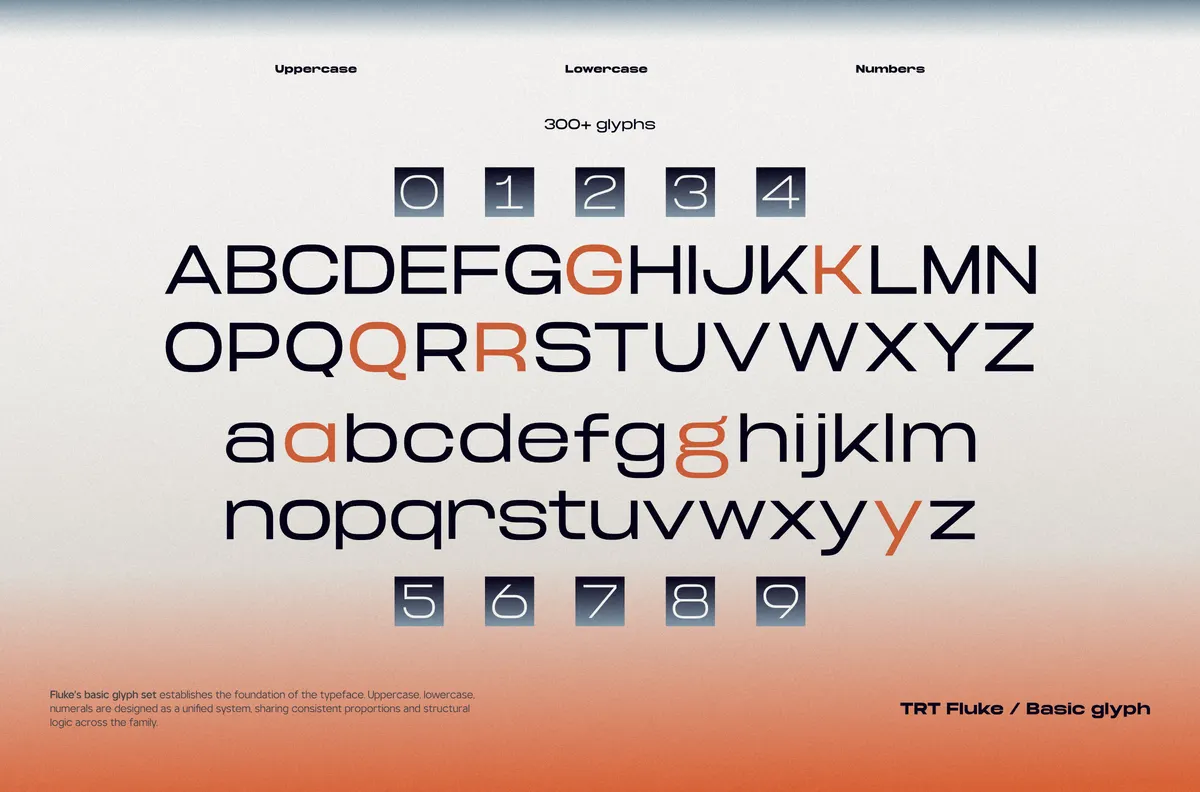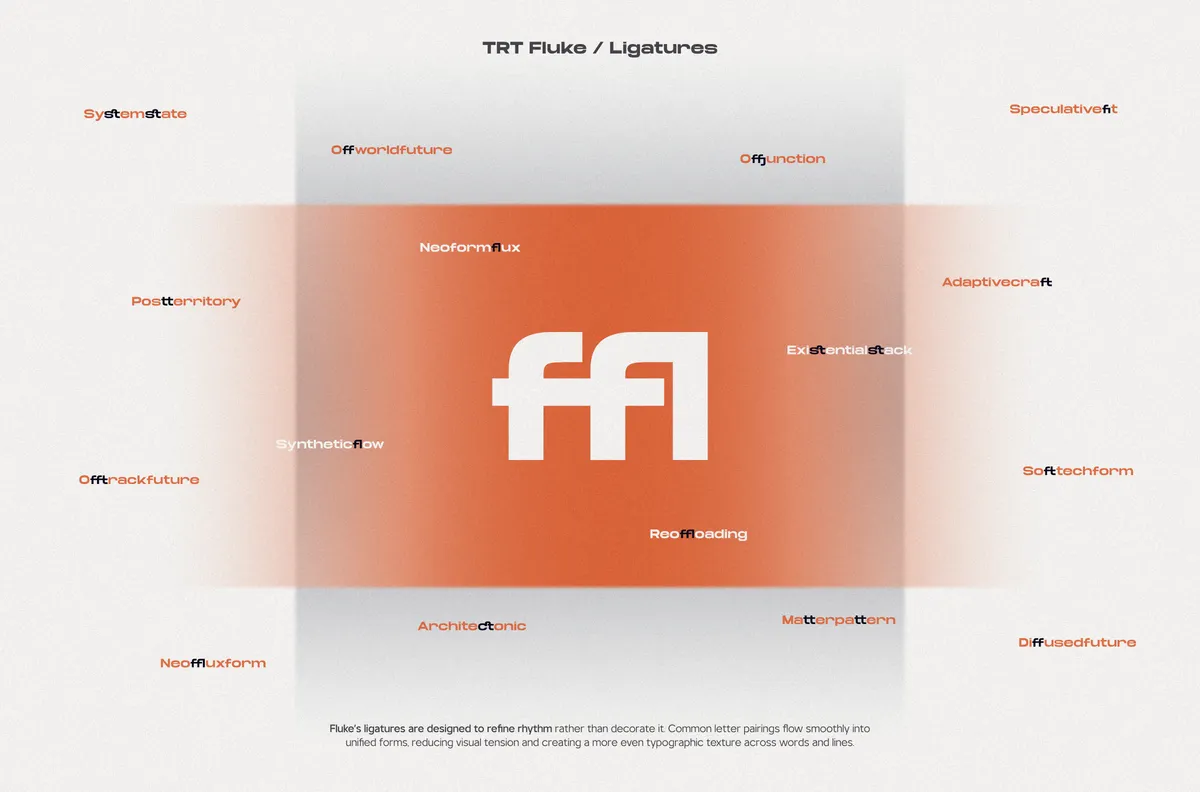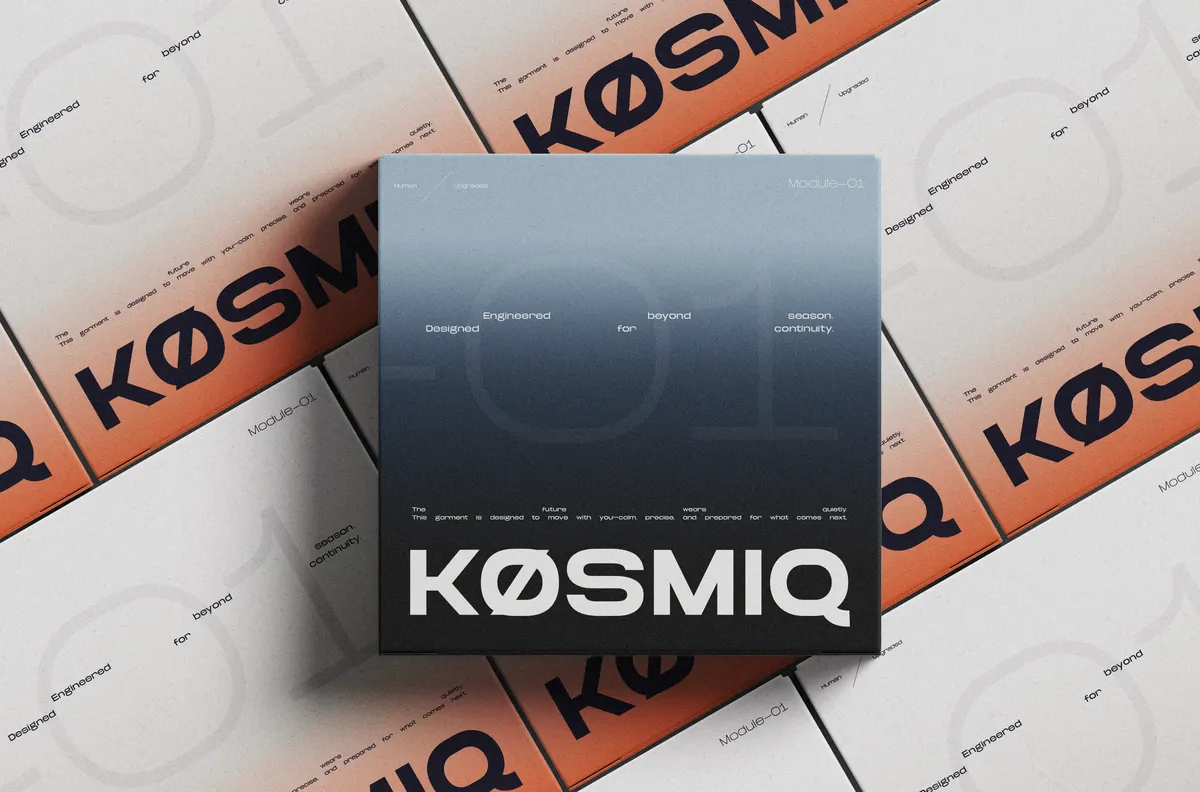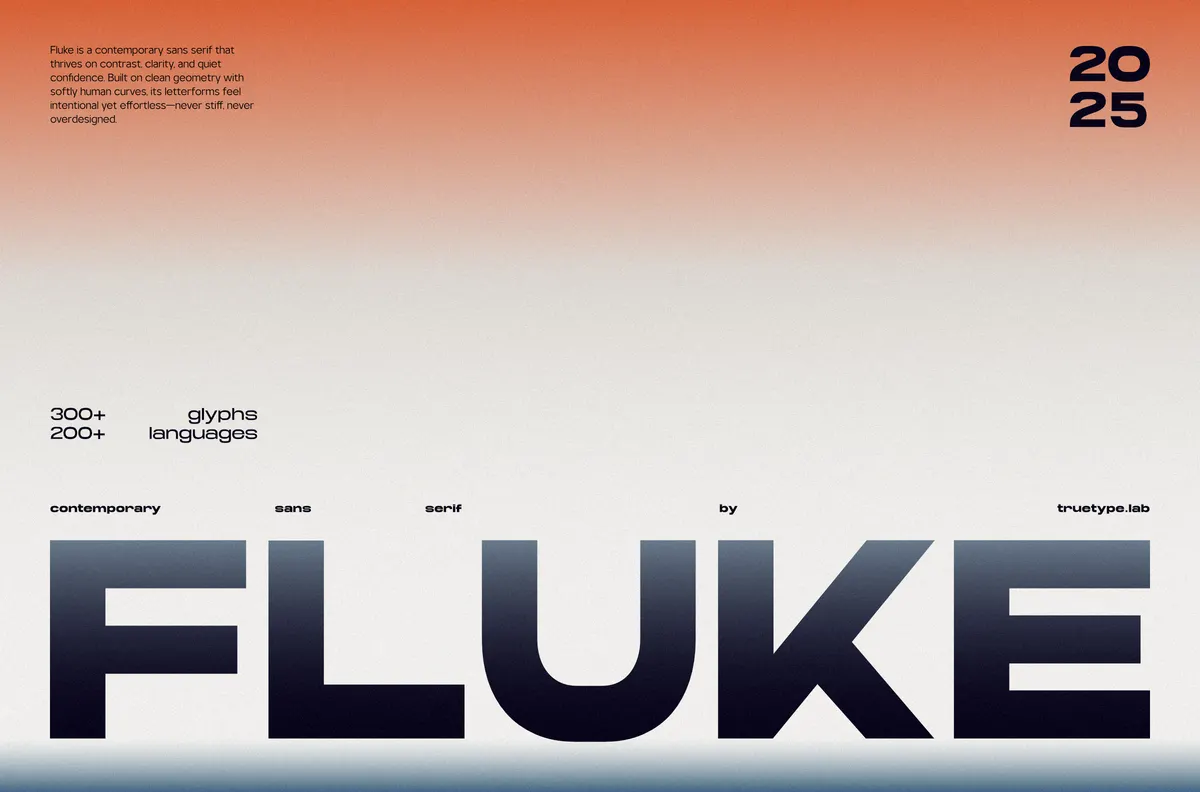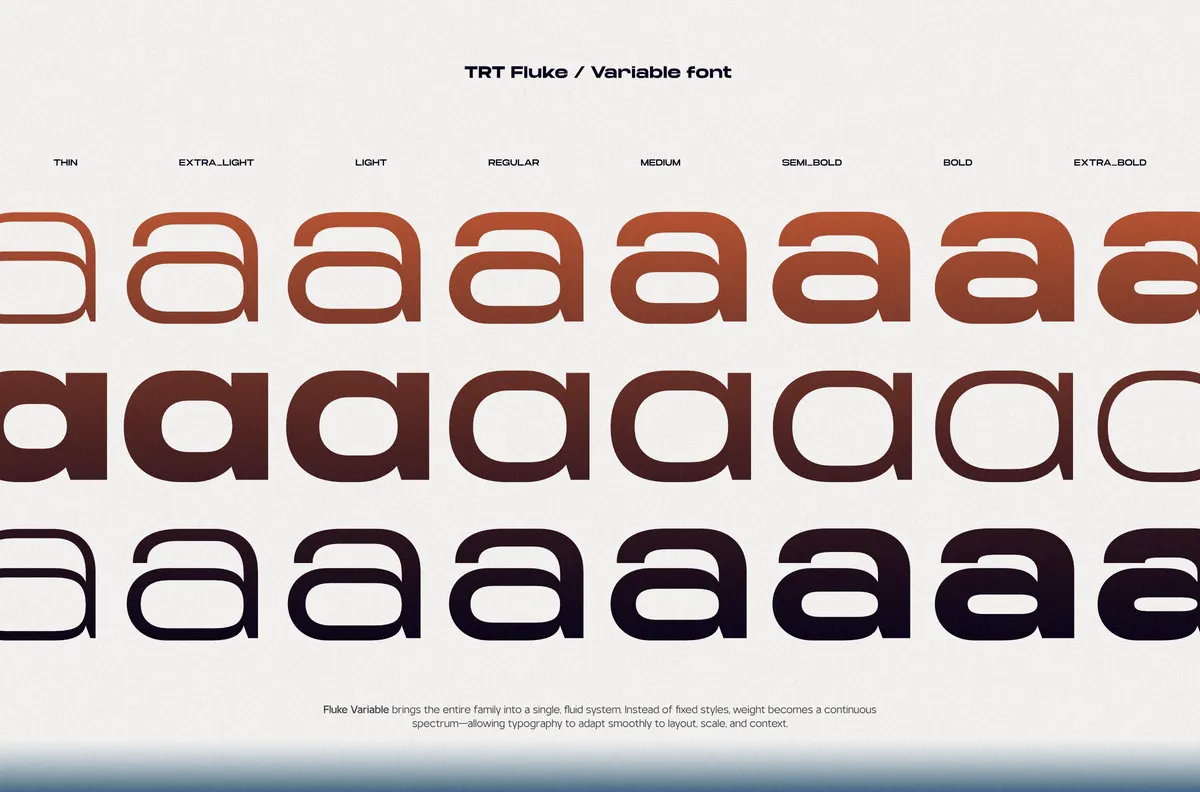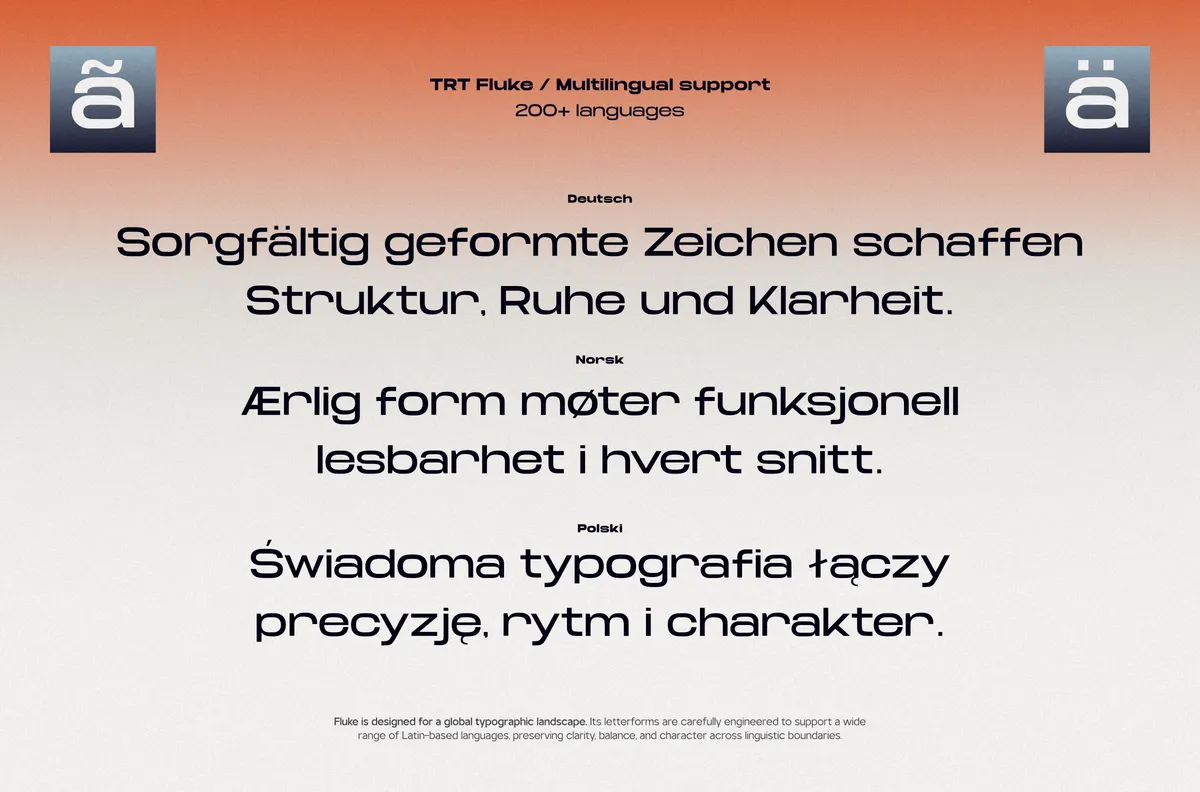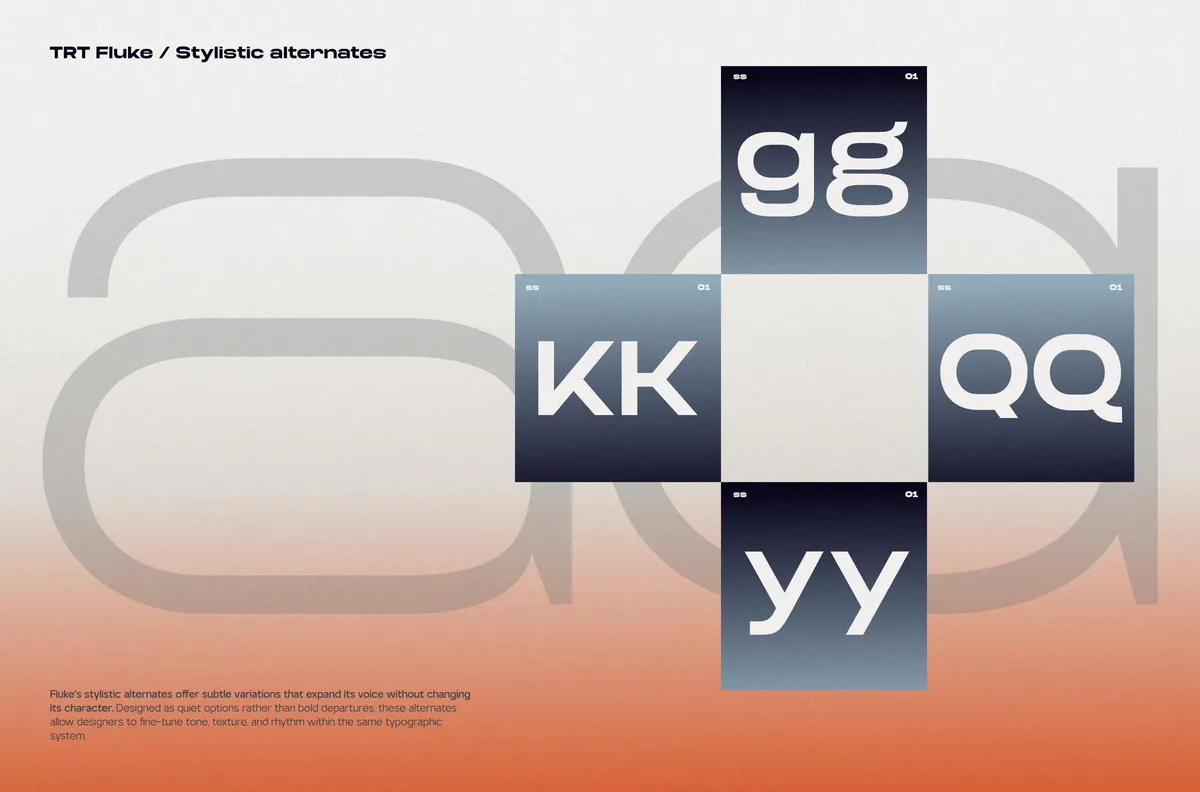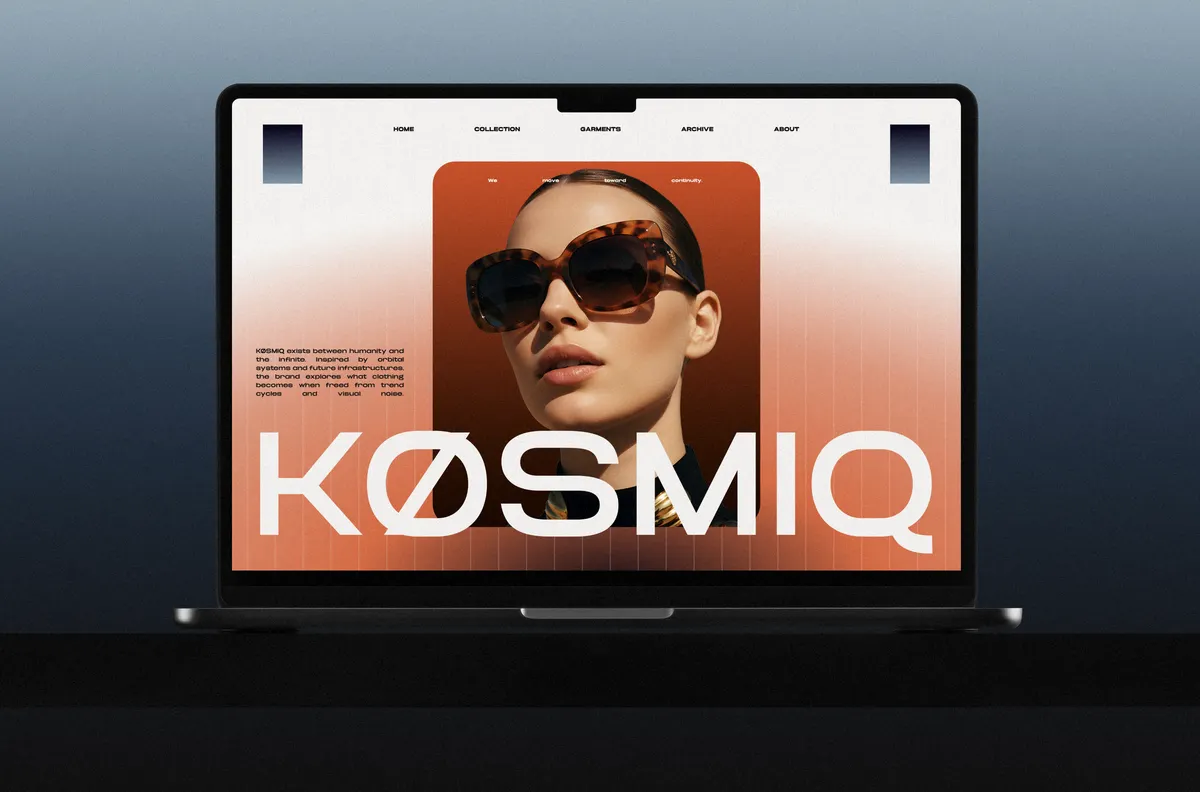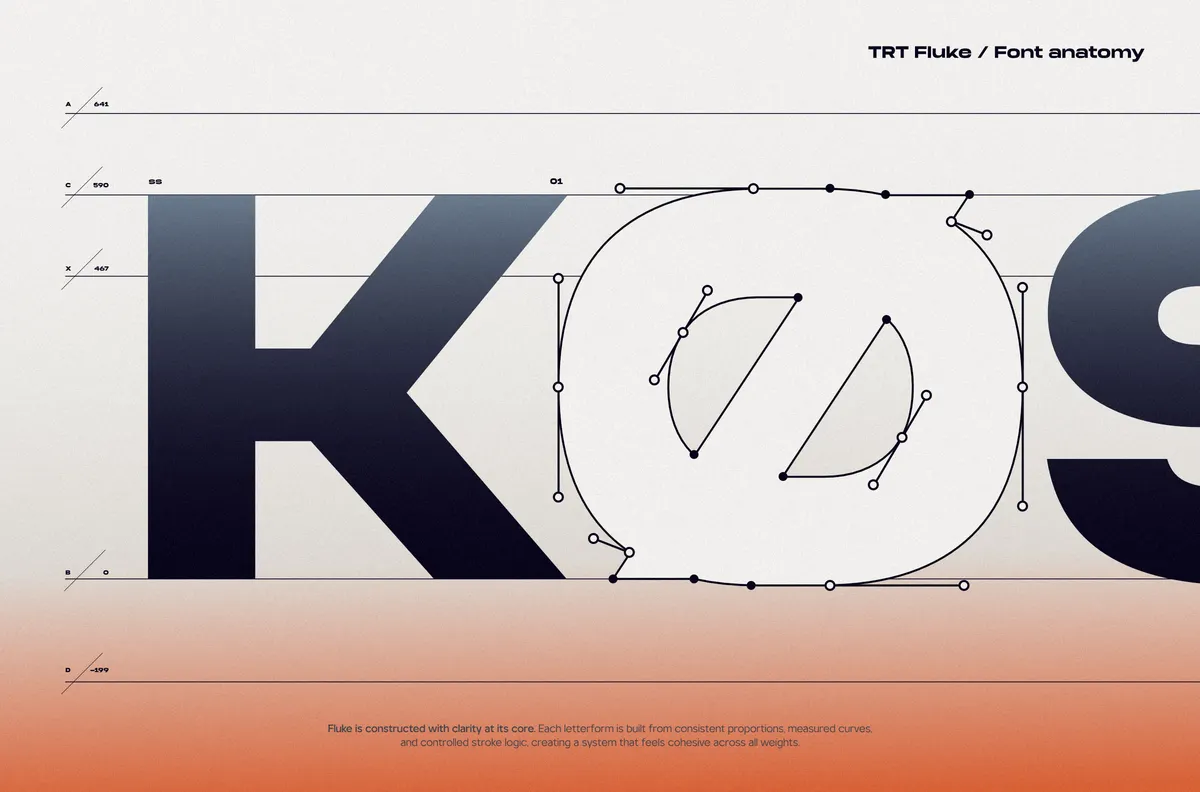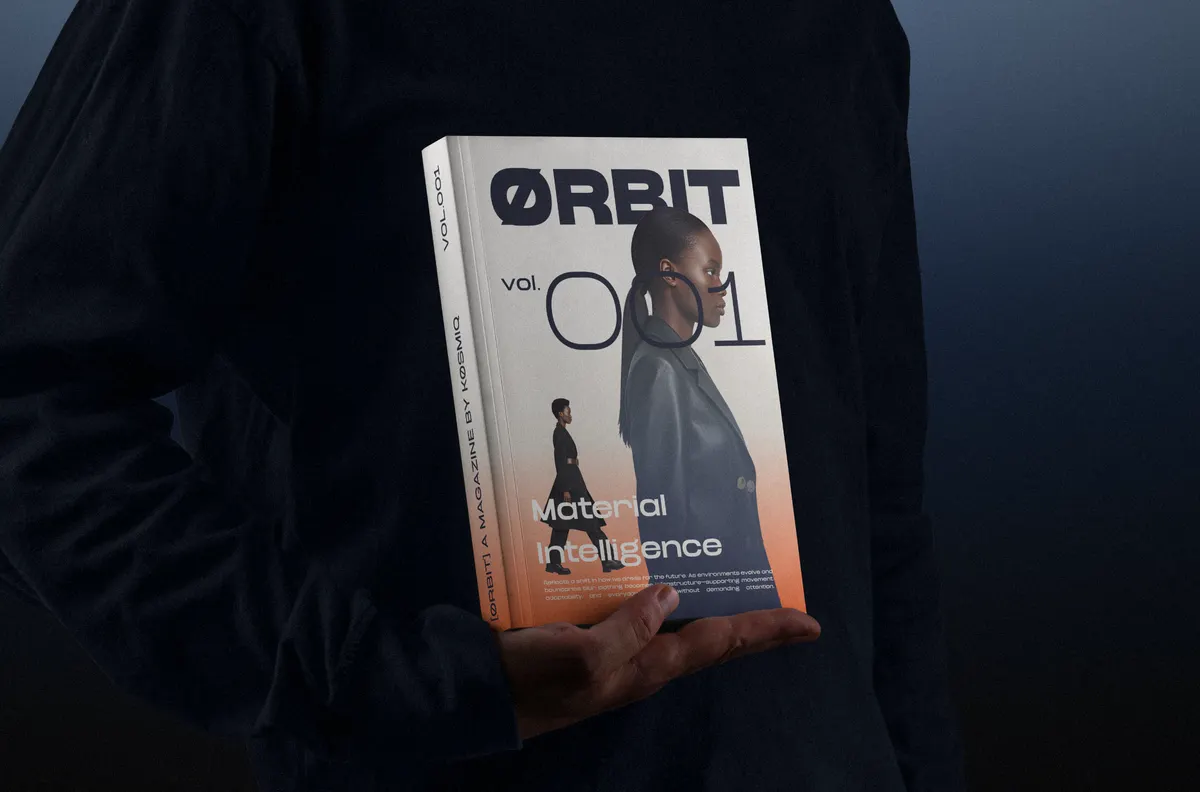
TRT Fluke - Expanded Sans Font
TRT Fluke stretches its sans serif skeleton wide, with even stroke weight and a confident, expanded rhythm across the whole alphabet. Eight weights move from a hairline Thin through a dense Extra Bold, and a variable font file covers that same range in one file.
A stylistic alternate set softens the ampersand and swaps in looped forms for G, K, Q, R, a, and y, and a second alternate reshapes the ampersand again for more variety. Use it for headlines, posters, branding, and editorial layouts that need width and presence.
- 8 weights: Thin, ExtraLight, Light, Regular, Medium, SemiBold, Bold, ExtraBold;
- 1 variable font covering the full weight range;
- Uppercase & lowercase;
- Numerals, punctuation & symbols;
- Stylistic alternates on select characters, superscript figures;